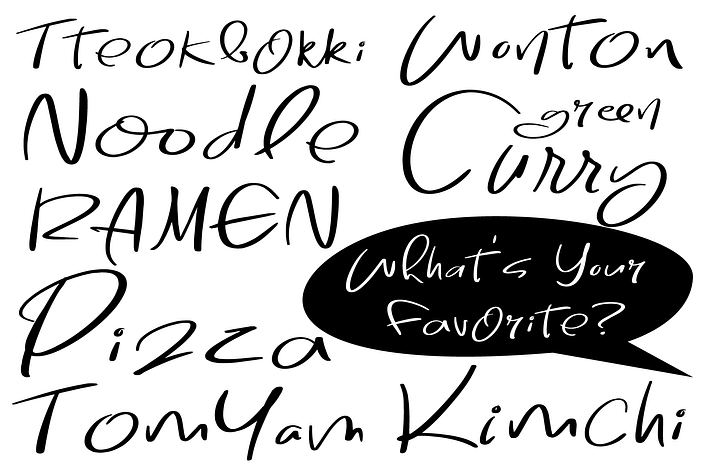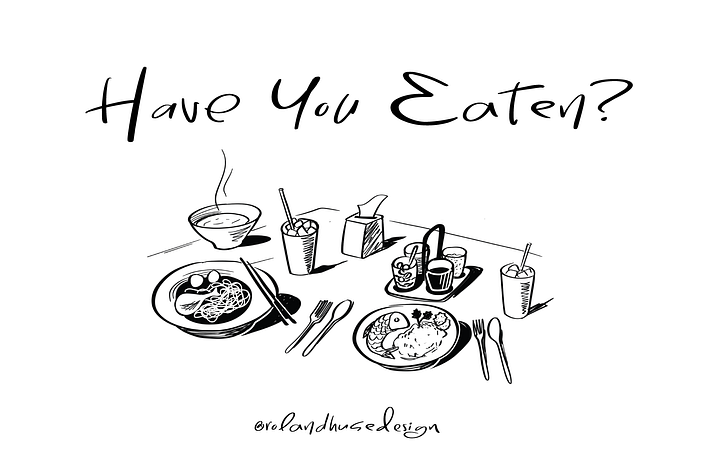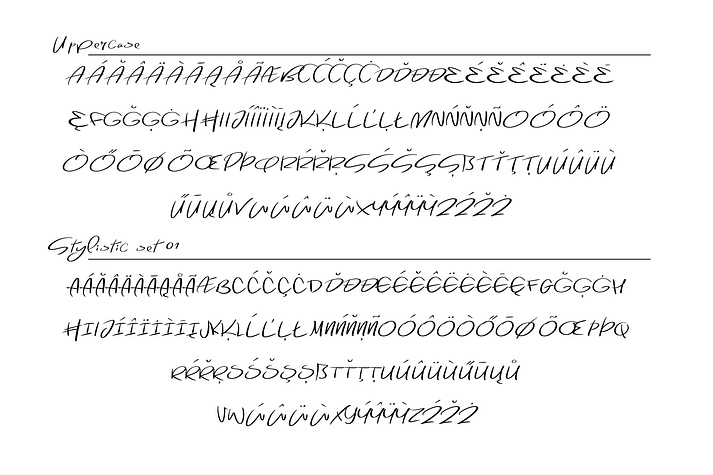
Have You Eaten?
Have You Eaten? is a font family published by Fonts by Roland Hüse.
"Have you eaten" is a playful and quirky handwritten font, featuring stylistic alternates for each letter. The letters alternate to create a more natural and organic flow when the contextual alternates OpenType feature is activated.
The font includes all European accented characters, special characters, two sets of numbers with alternating styles, basic symbols, and punctuation. Additionally, it offers some ligatures for common double letters like ‘ee’, ‘kk’, ‘ll’, ‘rr’, ‘ss’, ‘oo’, and ‘tt’.